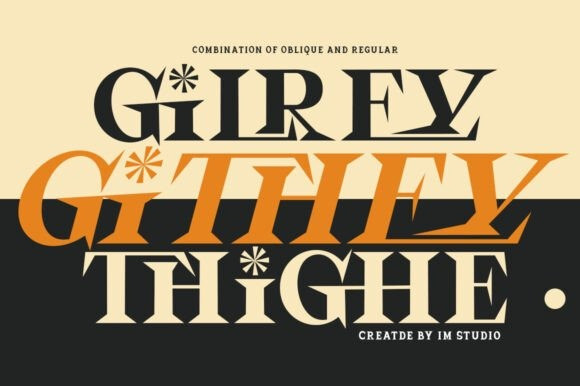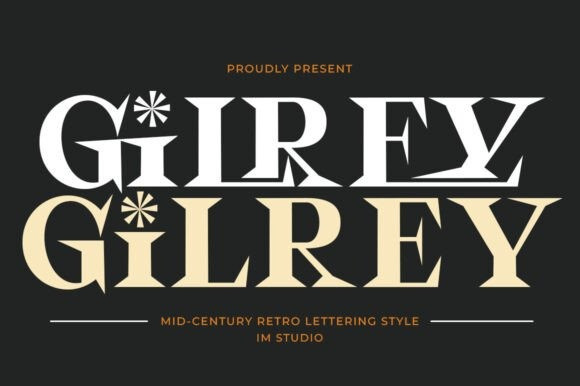
Gilrey Font
Gilrey Font, the quintessential mid-century and retro style font, that effortlessly redefines elegance. Immerse in its impeccable design versatility suitable for a plethora of applications. From transforming your display designs to personalizing your product offerings – shirts, posters, decal stickers, Gilrey is the ideal pick. Moreover, leverage it for crafting unique logos and branding elements, heartwarming greeting cards, dynamic Cricut projects, eye-catching magazine aesthetics or planner prints. Gilrey is not just a font, it is a statement, potent enough to make your social media content, websites, or any digital canvas stand out. Opt for Gilrey, and let your designs do the talking.